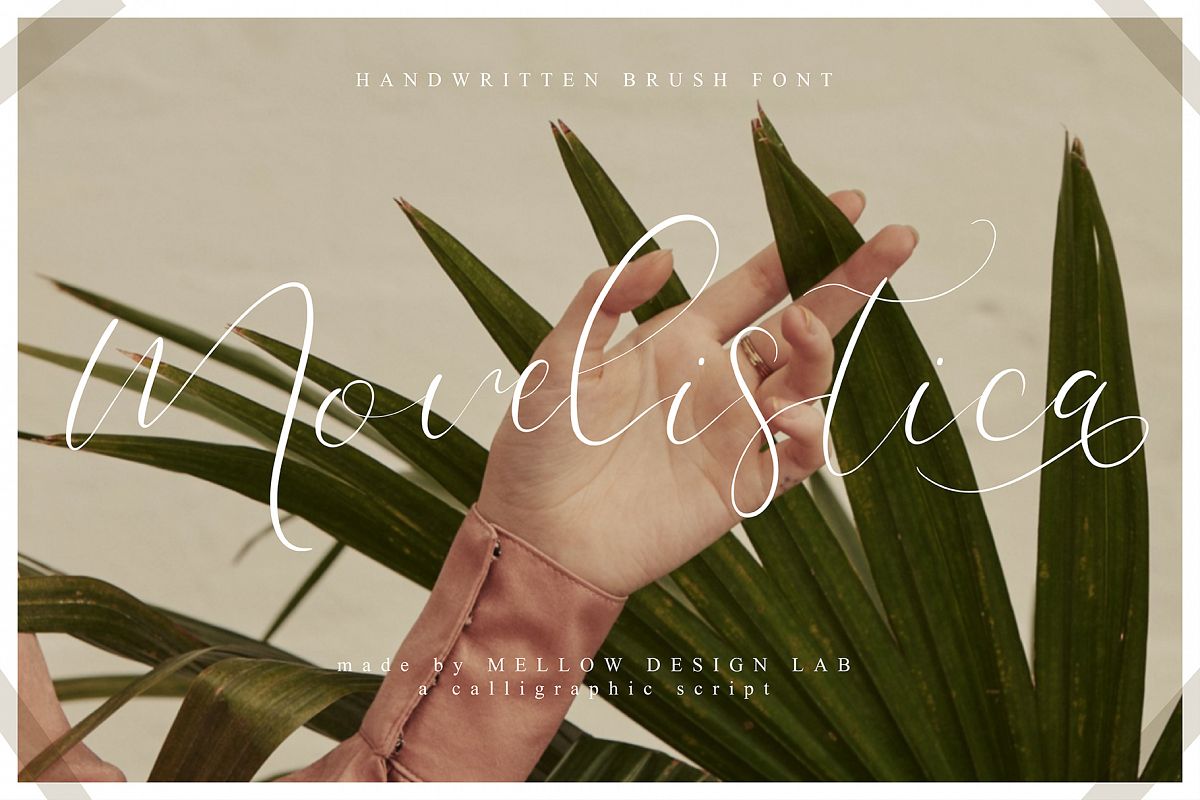
Movelistica
This font is especially for you if you need to add tenderness to your project.
Combine it with other fonts and add style in your project.
This handwritten font is ideal for branding and decorate your any project.This font are perfect for wedding invitation or your blog.
Also with their help, you can create a logo or beautiful frame for your home.